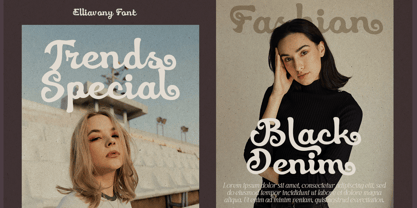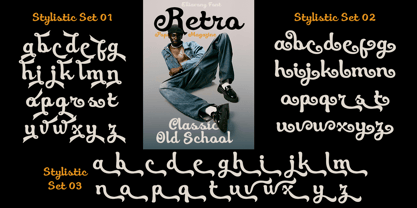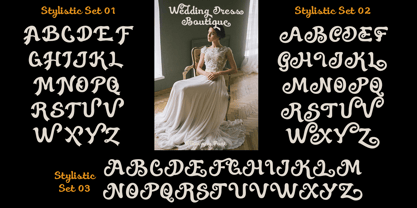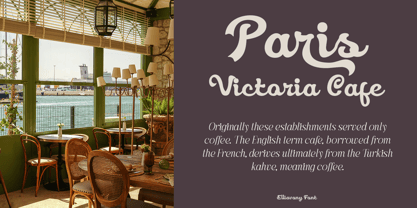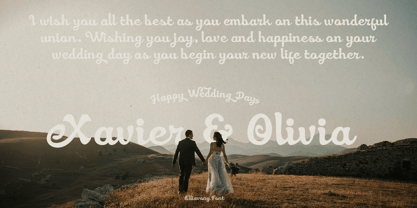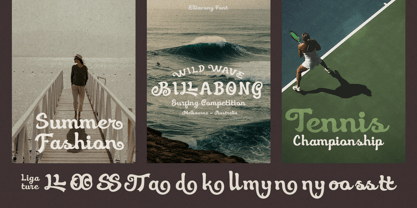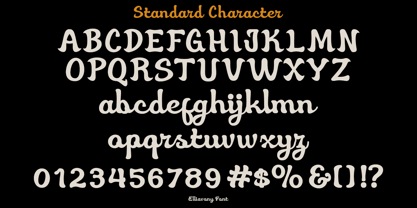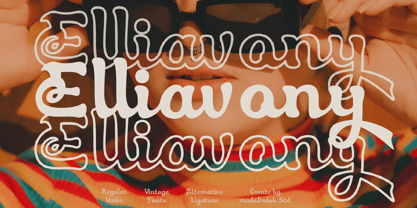
Eliavony
by madeDeduk
The Eliavony Font Family was designed by madededuk and published by madeDeduk. Eliavony contains 2 styles and family package options.
Eliavony is a captivating retro script that embodies the essence of 70's style. This font allows for creative exploration and combination, establishing a rhythmic flow that enhances readability. Each glyph is meticulously crafted, resulting in beautifully simple words that stand out. Its bold and legible design makes Eliavony perfect for a variety of applications, including branding, product packaging, invitations, quotes, headlines, labels, posters, logos, and any advertising needs. Whether for digital content or printed materials, Eliavony adds a touch of nostalgia and elegance to your projects, making it an ideal choice for those seeking a distinctive and stylish typeface.